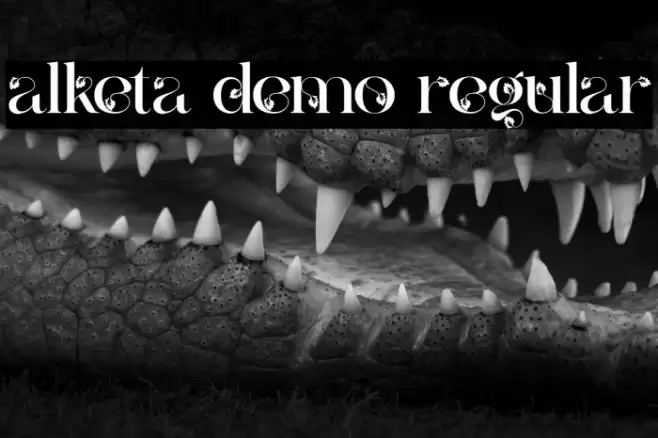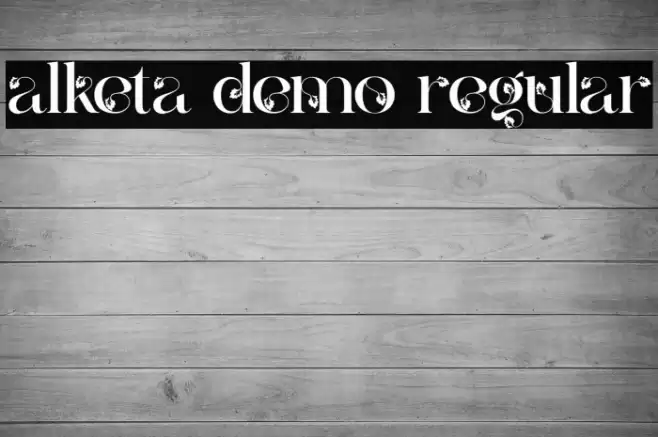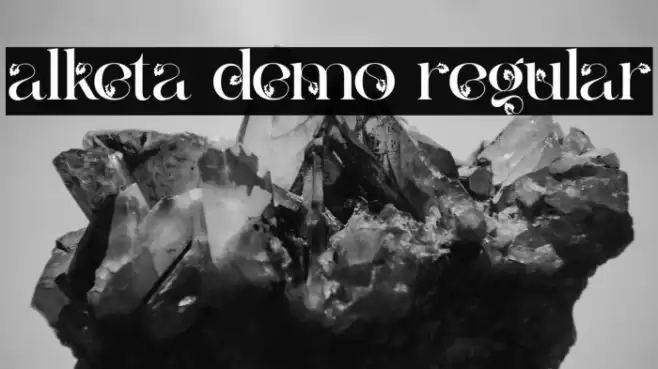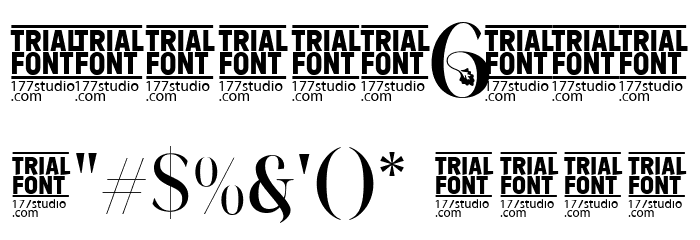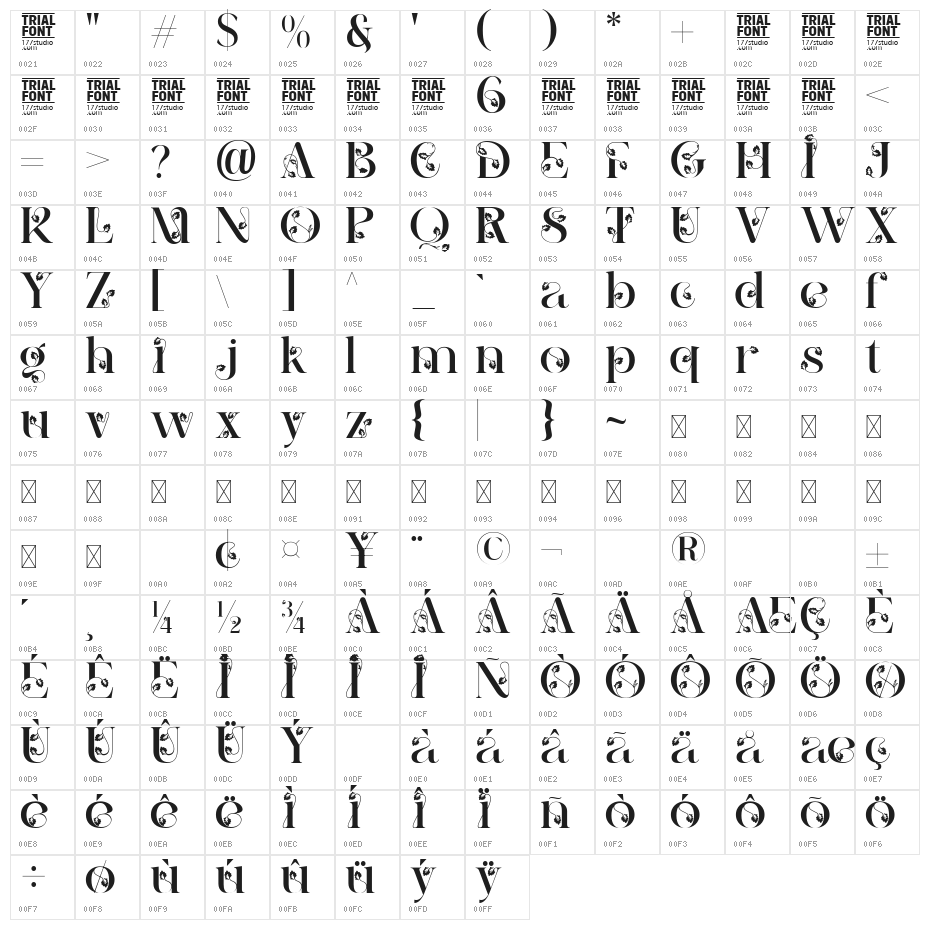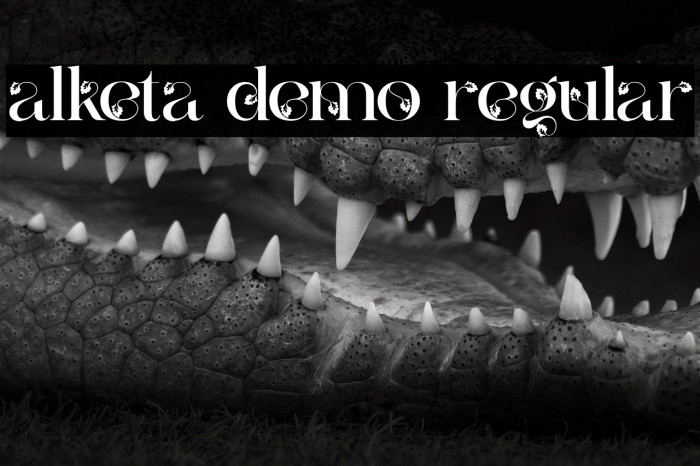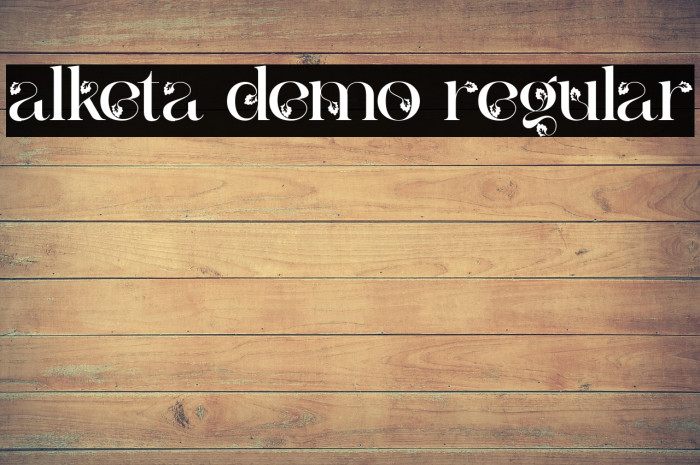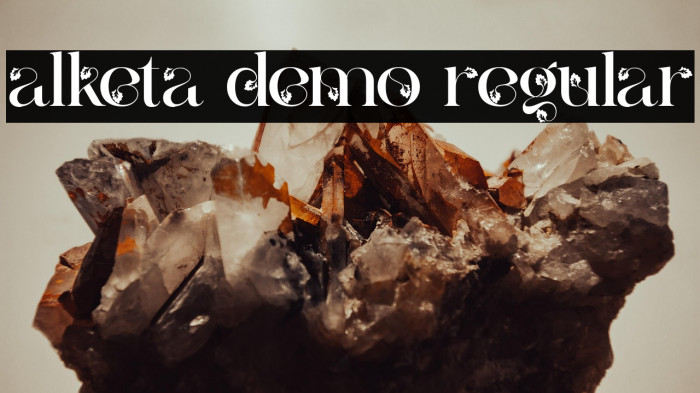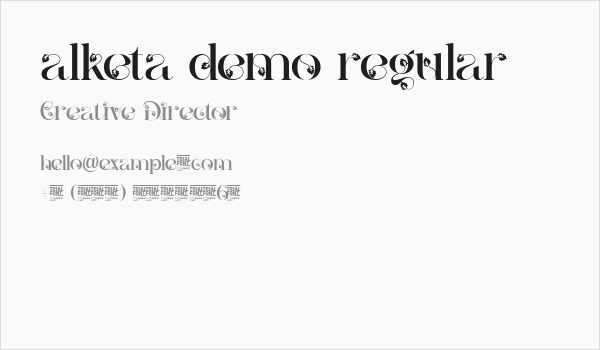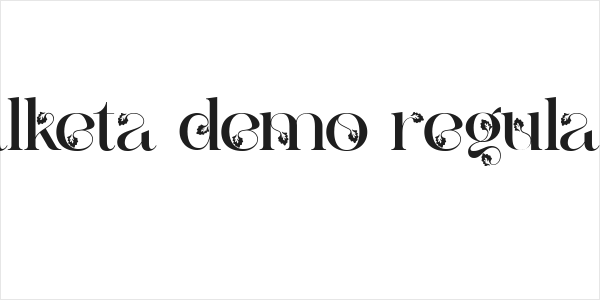
alketa demo regular Font
alketa demo regular Description
This font features an elegant and decorative style, characterized by intricate floral embellishments that intertwine with the letters. The uppercase letters are bold and striking, with a unique blend of traditional serif elements and artistic flourishes. The lowercase letters maintain a similar decorative theme, offering a harmonious balance between readability and artistic expression. The numbers and special characters are equally ornate, making this font suitable for creative and eye-catching designs.
An ornate and decorative serif font with floral embellishments from Uncategorized fonts.
- Proposed Projects: Ideal for wedding invitations, luxury branding, artistic posters, and decorative headlines.
- Contrast: High
- Overall Style: Decorative
- Use Case: Headlines, Logos, Invitations